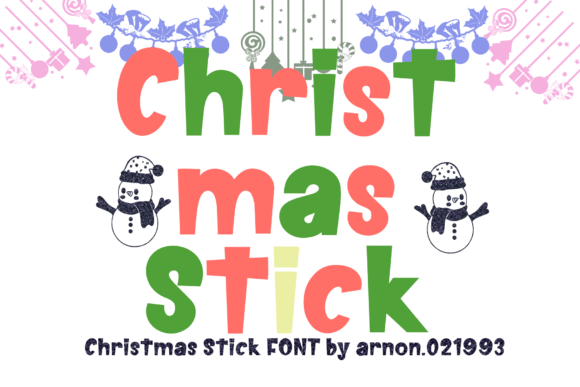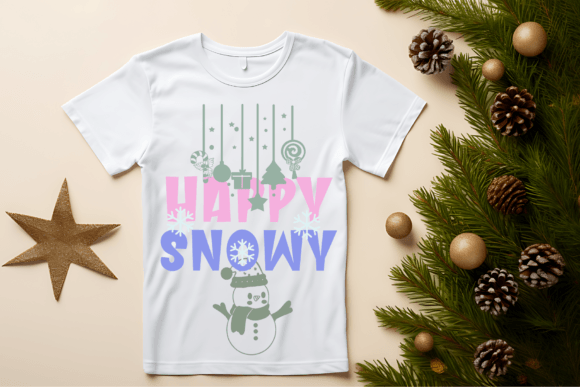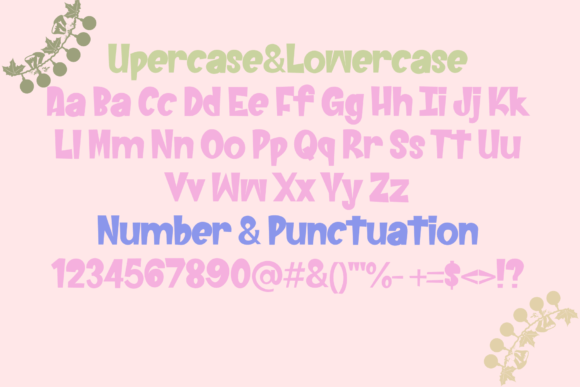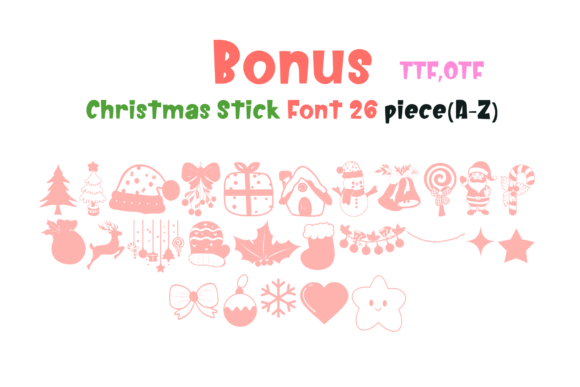
Introduction to Christmas Stick Font
As a designer, have you ever stumbled upon a font that makes your creative project shine? The perfect font can elevate a design from ordinary to extraordinary. I still remember the excitement I felt when I discovered the Christmas Stick Font – a high-quality, playful display font that’s perfect for kids’ designs. With its modern, bold, and chunky style, it’s an instant hit with children and adults alike.
Whether you’re working on a birthday party invitation, a kindergarten project, or a comic strip, the Christmas Stick Font is an invaluable design resource that’s sure to make your designs stand out. And the best part? It’s available for free download with a transparent background, making it easy to incorporate into your creative project.
Key Features of Christmas Stick Font
- High-quality design resource perfect for creative projects, especially holiday-themed designs.
- Christmas Stick Font comes in a transparent background, allowing for seamless integration with various design elements.
- Unique and creative design, perfect for adding a touch of festive flair to any project.
Honest Review: Christmas Stick Font
I recently had the chance to work with the Christmas Stick Font, and I must say it’s a great addition to any design project. This high-quality font is perfect for creating a festive and fun atmosphere in your designs.
- ✨ The font is highly customizable, allowing you to adjust the color, size, and style to fit your creative vision.
- ✨ The transparent background option makes it easy to place the font on any design element without worrying about distracting backgrounds.
One thing to note is that the font may not be suitable for formal or professional projects, as it has a more playful tone. Additionally, the font may not be as versatile as other fonts on the market, but it’s perfect for a specific design resource like a Christmas card or social media graphic.
- ⚠️ May not be suitable for formal or professional projects
- ⚠️ Limited versatility compared to other fonts
Overall, I’m impressed with the Christmas Stick Font and would recommend it for any design project that requires a fun and festive touch. Its high quality and customizable options make it a valuable design resource.
Common Use Cases for Christmas Stick Font
The Christmas Stick Font is ideal for creating festive designs, such as holiday cards, gift tags, and party invitations. It can also be used to create custom designs, such as festive banners and holiday-themed social media graphics. With its high-quality design capabilities and transparent background, the Christmas Stick Font is a valuable design resource for any creative project.